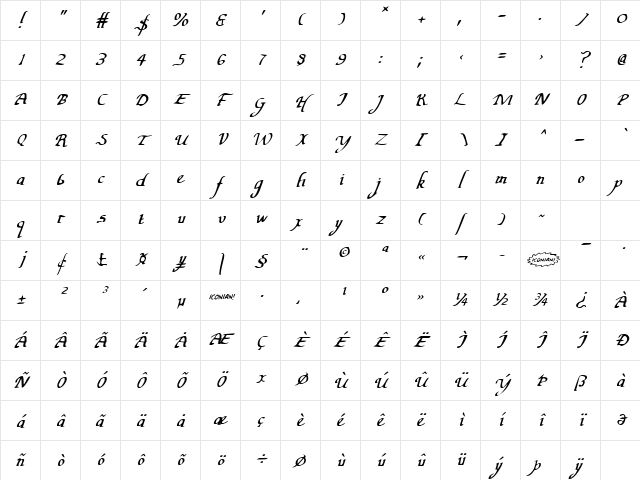
Valley Forge Italic Italic
Design Context for Valley Forge Italic
Valley Forge Italic is a composed and adaptable typeface that performs quietly and consistently across a wide range of design contexts. The slanted form adds forward momentum and visual energy.
Pro Tip: Use Valley Forge Italic for emphasis, pull quotes, and subheadings where its slanted energy can add rhythm to the layout.